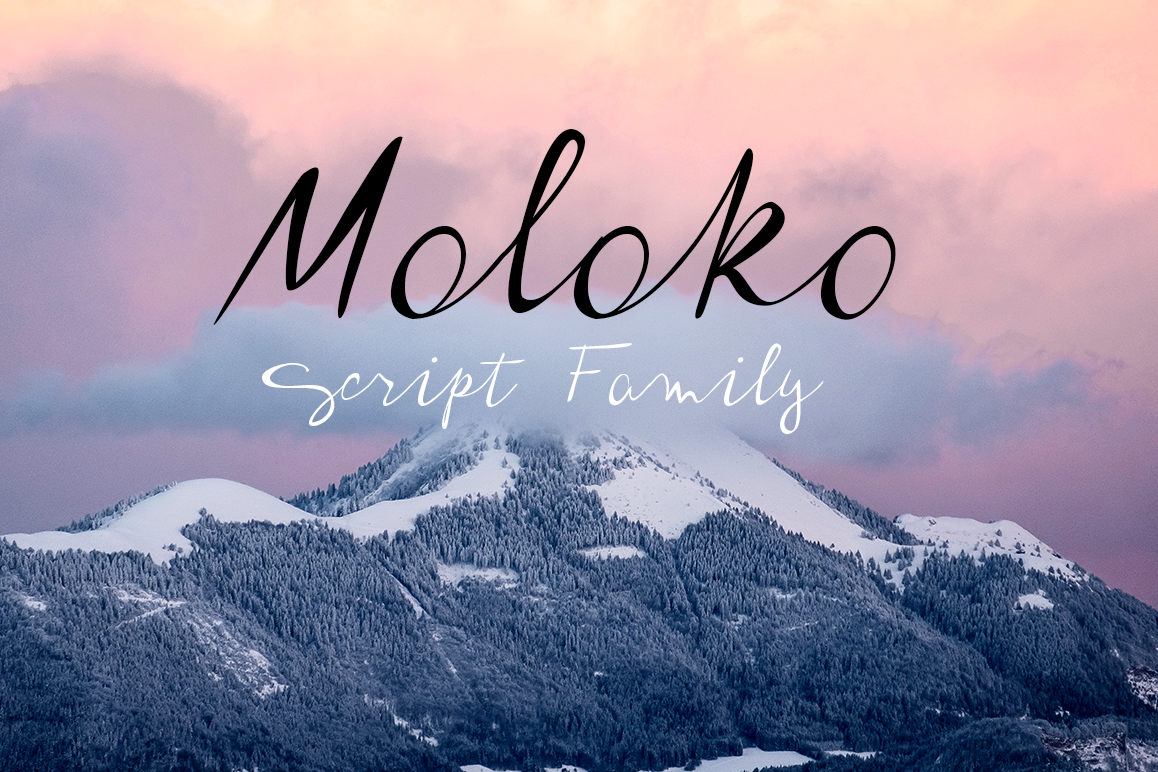
Moloko script family
Moloko-Initial
Moloko-Regular
Moloko-finita
New script pack Moloko has 3 fonts with
• initial glyphs
• regular glyphs
• final glyphs
Moloko is suitable use for market design developed at this time, this font has a model Trendy, natural and gentle, with this font you can take advantage of the opportunity in every moment of one wonderful way to highlight the celebration of the feast of your best, because this font will be advocates for purposes such as wedding invitations, party, graduation, birthday, gathering, etc.I hope you enjoy using my font.